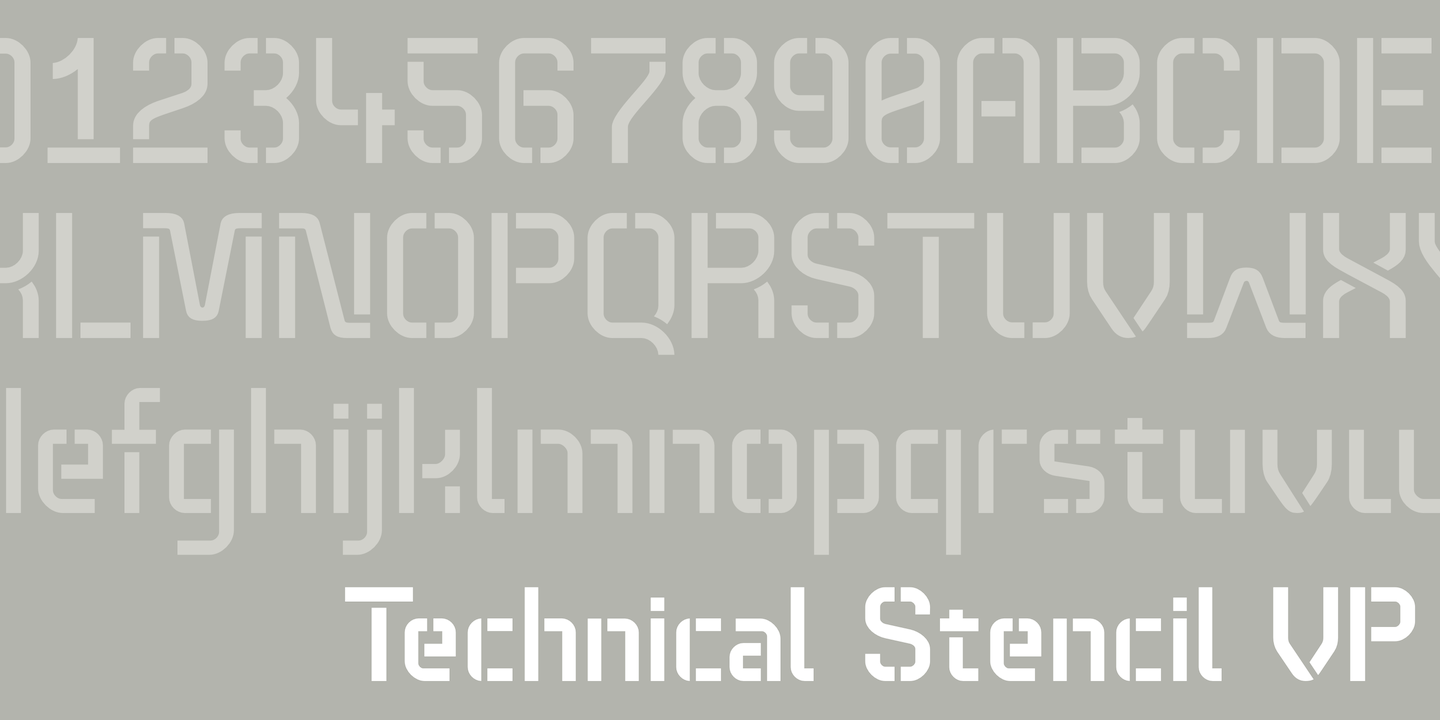
This stencil typeface is perfect for tech branding, industrial labels, posters, user interfaces, and social media graphics.
The Technical Stencil VP Font is exciting because its precise, machined design with clean cuts delivers a robust, futuristic aesthetic that enhances modern projects.
Its font family includes Technical Stencil VP Thin, Thin Oblique, Light, Light Oblique, Regular, Oblique, Medium, Medium Oblique, Bold, and Bold Oblique, offering versatile options for creative applications.
Searching for a font that blends precision with a futuristic edge? Technical Stencil VP Font Free Download is an ideal choice for designers seeking a high-tech, industrial look. Designed by Val Kalinic and published by VP Type, this stencil typeface draws inspiration from precisely machined labels on tools, such as cameras and cars, ensuring legibility at all sizes. With 10 styles and 1120 glyphs per style, the Technical Stencil VP Font is perfect for digital and print projects, from tech branding to dynamic marketing materials.
The Technical Stencil VP Font excels in applications requiring a clean, technical aesthetic. It’s a top choice for tech company logos, industrial product labels, or user interface designs in apps and games, where its stencil cuts add a modern, mechanical feel. Designers use it for posters, particularly for sci-fi events or tech expos, to create bold, eye-catching visuals. Social media creators leverage its futuristic style for Instagram posts, TikTok overlays, or YouTube thumbnails, boosting engagement. Its versatility also suits packaging and signage, ensuring a cohesive, professional look.
What makes the Technical Stencil VP Font Free Download so compelling is its seamless blend of robustness and style. Featuring an extensive Latin character set, Greek alphabet, multiple numeral sets, and 20 OpenType features like small caps, ligatures, and slashed zeros, it offers creative flexibility in tools like Adobe Illustrator or InDesign. Its streamlined, stencil design ensures clarity while adding a unique, industrial charm, making it ideal for projects that demand both functionality and visual impact. Available in OpenType format, it supports @font-face for web use, ensuring consistency across platforms.
The Technical Stencil VP Font family includes Thin, Light, Regular, Medium, and Bold, each with oblique variants, providing a wide range of weights for diverse needs. Thin and Light are great for subtle accents, while Bold delivers impact for headlines or logos. For commercial use, a license is required, available at https://www.myfonts.com or https://www.fontspring.com. The free version, such as Thin Oblique, is limited to personal use.